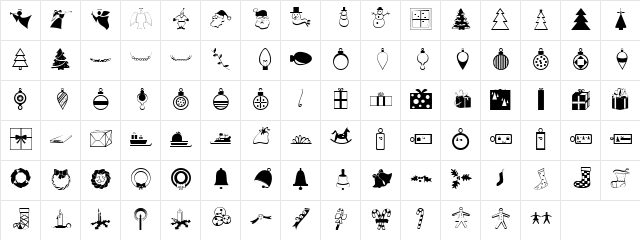
Exgratia Regular
Design Context for Exgratia Typeface
Exgratia is a composed and adaptable typeface that performs quietly and consistently across a wide range of design contexts.